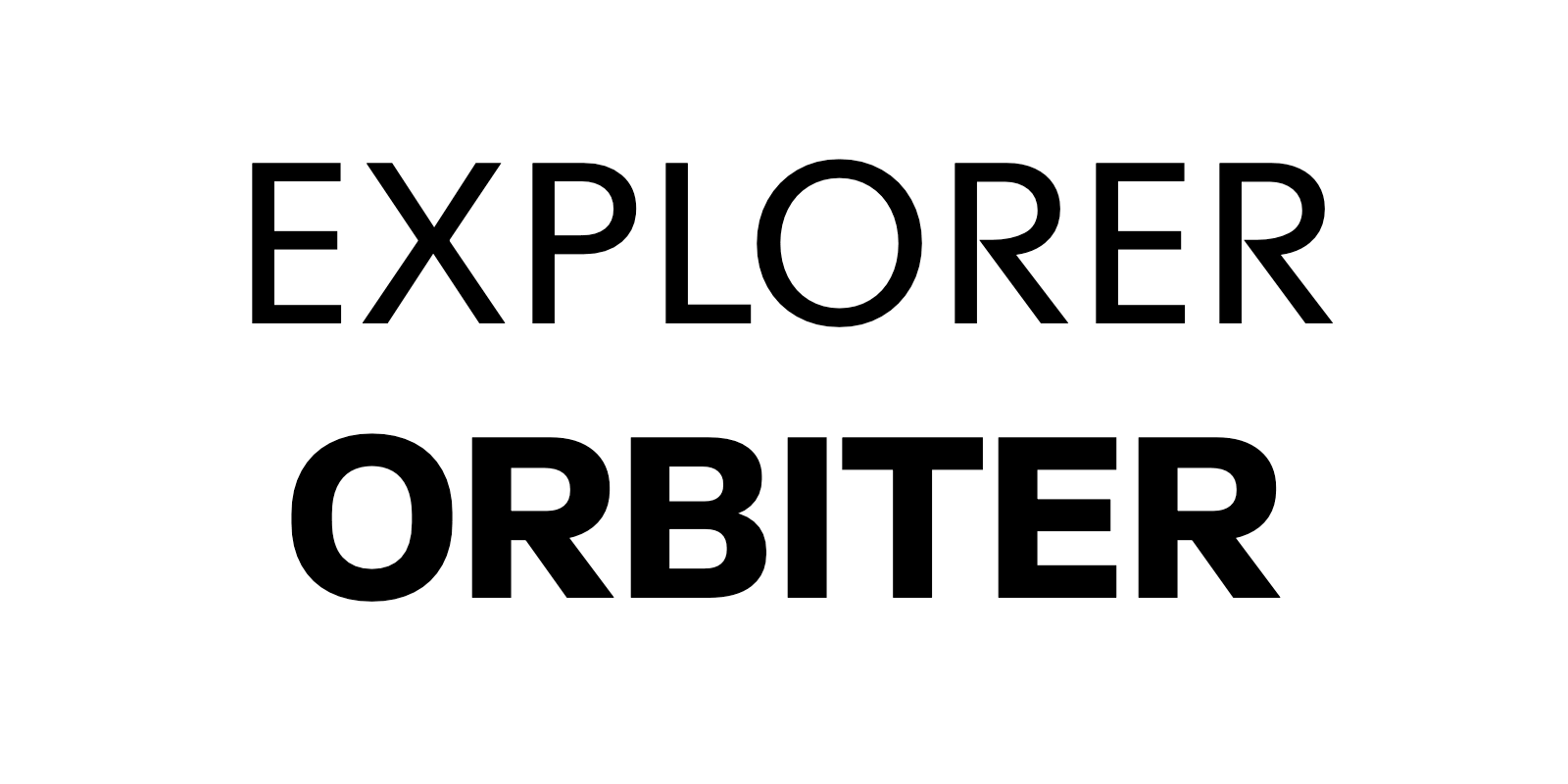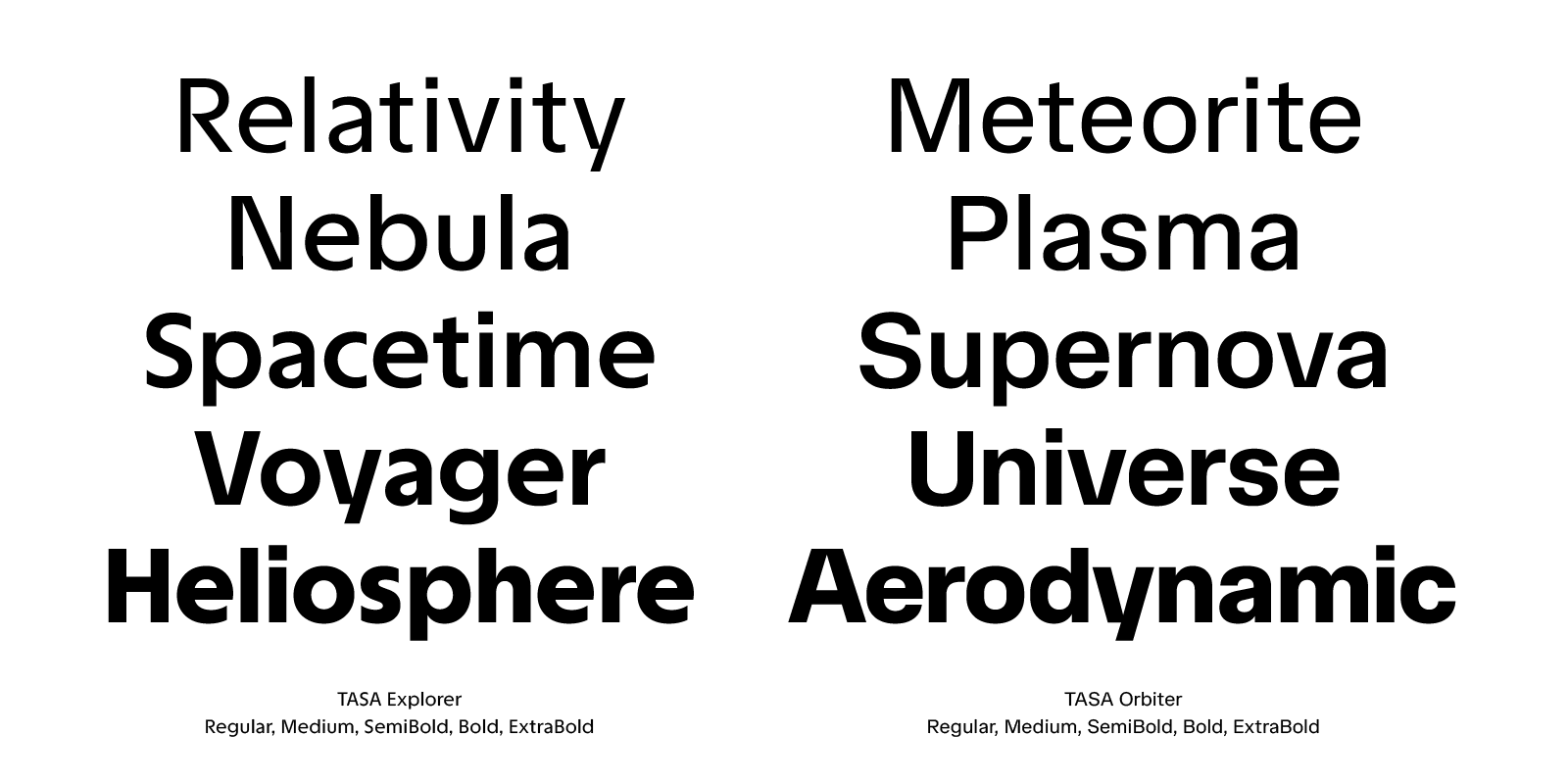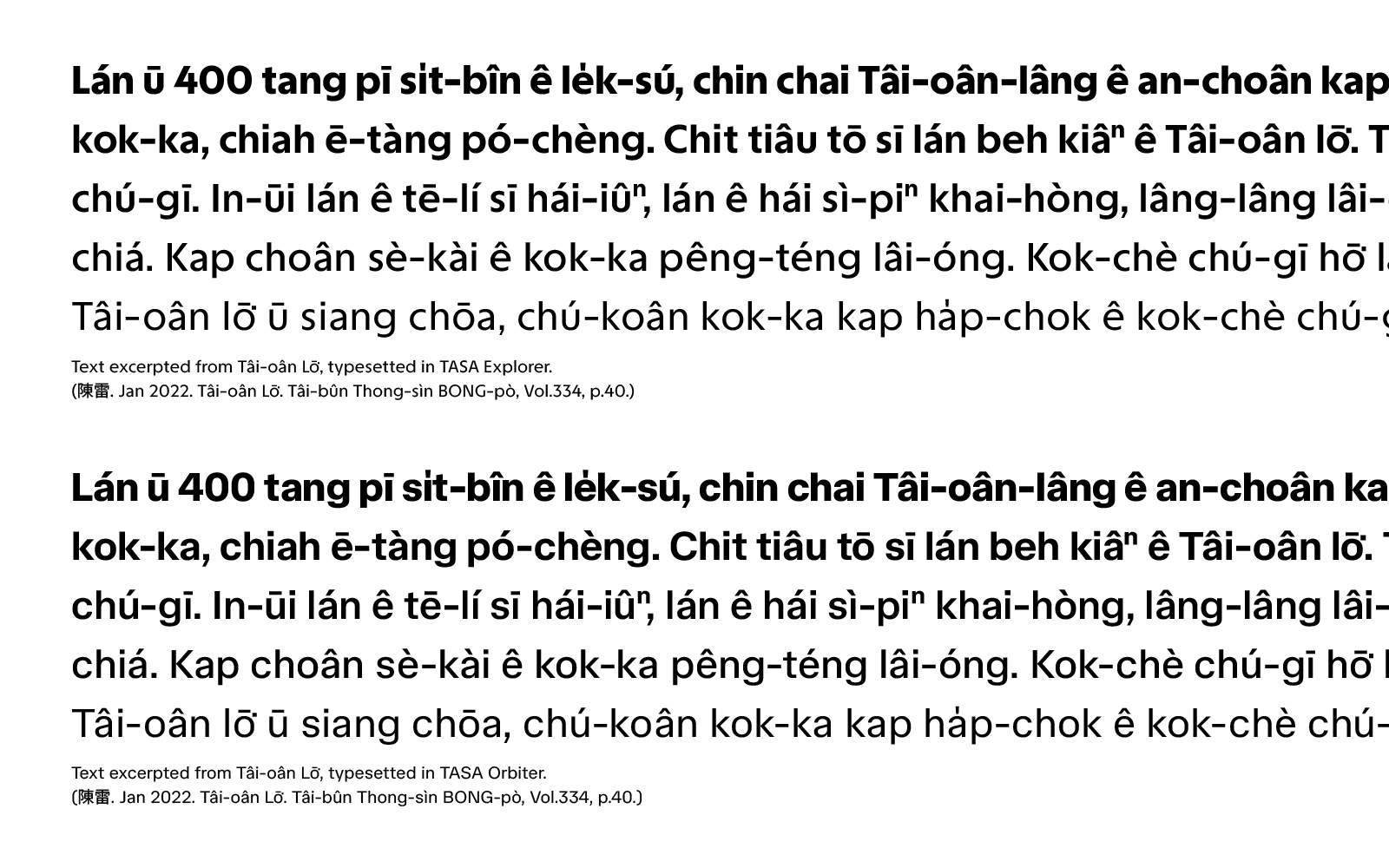
TASA Explorer and TASA Orbiter, two typefaces originally designed for Taiwan Space Agency.
TASA Explorer TASA Orbiter
The TASA Typeface Collection is a suite of two typefaces, TASA Explorer and TASA Orbiter, two typefaces originally commissioned by the Taiwan Space Agency (TASA) as part of its institutional rebrand, and released under the SIL Open Font License.
TASA Explorer is a geometric sans-serif designed to echo the adventurous spirit of space exploration. Its vertically cut terminals and sharp-angled corners lend a bold, assertive character that commands attention. Subtle contrast between thick and thin strokes adds visual fluidity, preventing the geometric structure from feeling rigid.
TASA Orbiter takes a more pragmatic approach, reflecting the technical precision of space operations. The neo-grotesque design is built from a systematic vocabulary of recurring shapes, featuring slightly squarish counters and right-angled turns.
Both typefaces are available in 5 weights (Regular, Medium, SemiBold, Bold, ExtraBold) and can be used as either static font files or variable fonts with a weight axis.
version 1 (2023) –– Original Release
The original TASA typefaces were designed between 2022–2023 as part of the comprehensive rebrand project for the Taiwan Space Agency.
TASA Explorer (v1) featured five weights and was designed exclusively for display use. With an extremely large x-height and minimal optical corrections, it was optimized for high-impact performance at large sizes.
TASA Orbiter (v1) was released in 13 styles across three optical sizes: Text and Deck each had four weights, while Display included five weights.
version 2 (2025) –– Redesign
In 2025, both typefaces were updated with a focus on preserving their core design characteristics while enhancing drawing precision and readability.
TASA Explorer introduces a slightly reduced x-height, smoother letterforms, and more relaxed spacing, resulting in a more even texture across text blocks. It is now suitable for both display and text applications.
TASA Orbiter consolidated its optical size variants, reducing the total styles from 13 to five weights—streamlining the family in line with TASA Explorer. The new design is based on the former “Deck” optical size, with refined forms and spacing optimized for flexible use.
The fonts now support the Google Fonts Core Latin character set, along with additional glyphs for Taiwanese Romanizations (Tâi-lô & POJ).